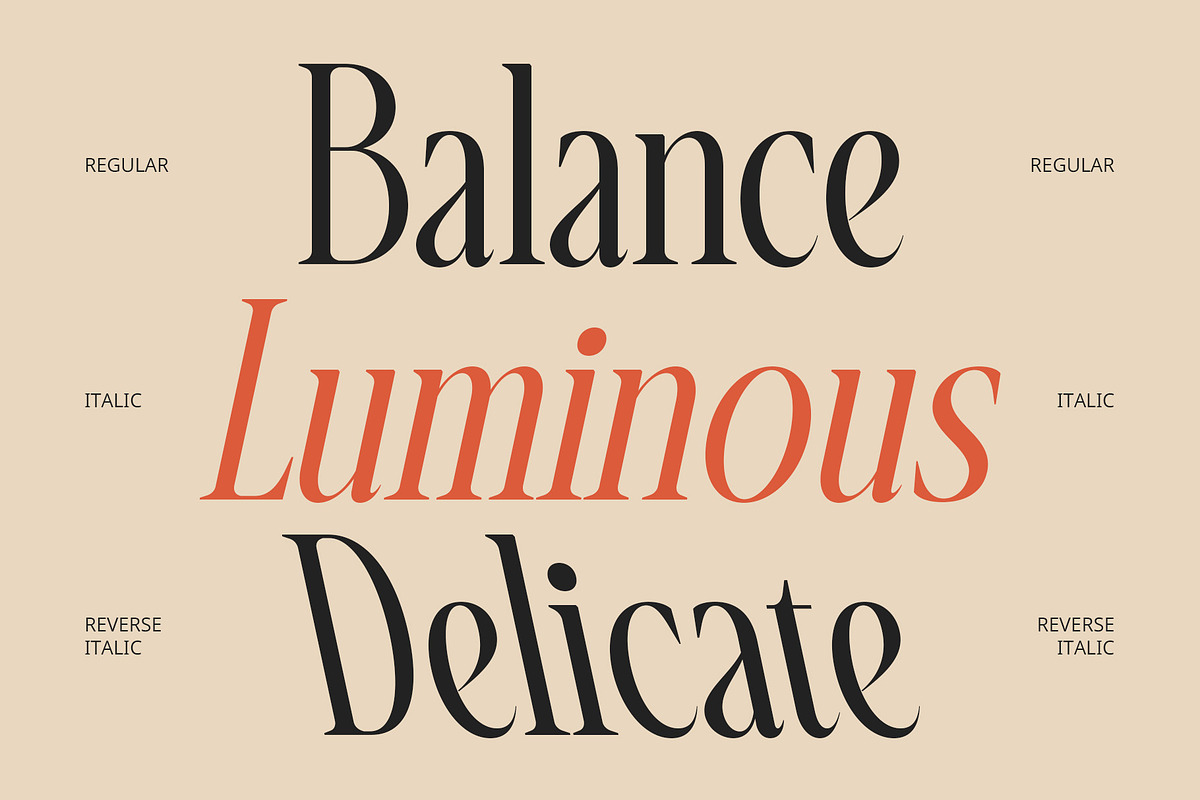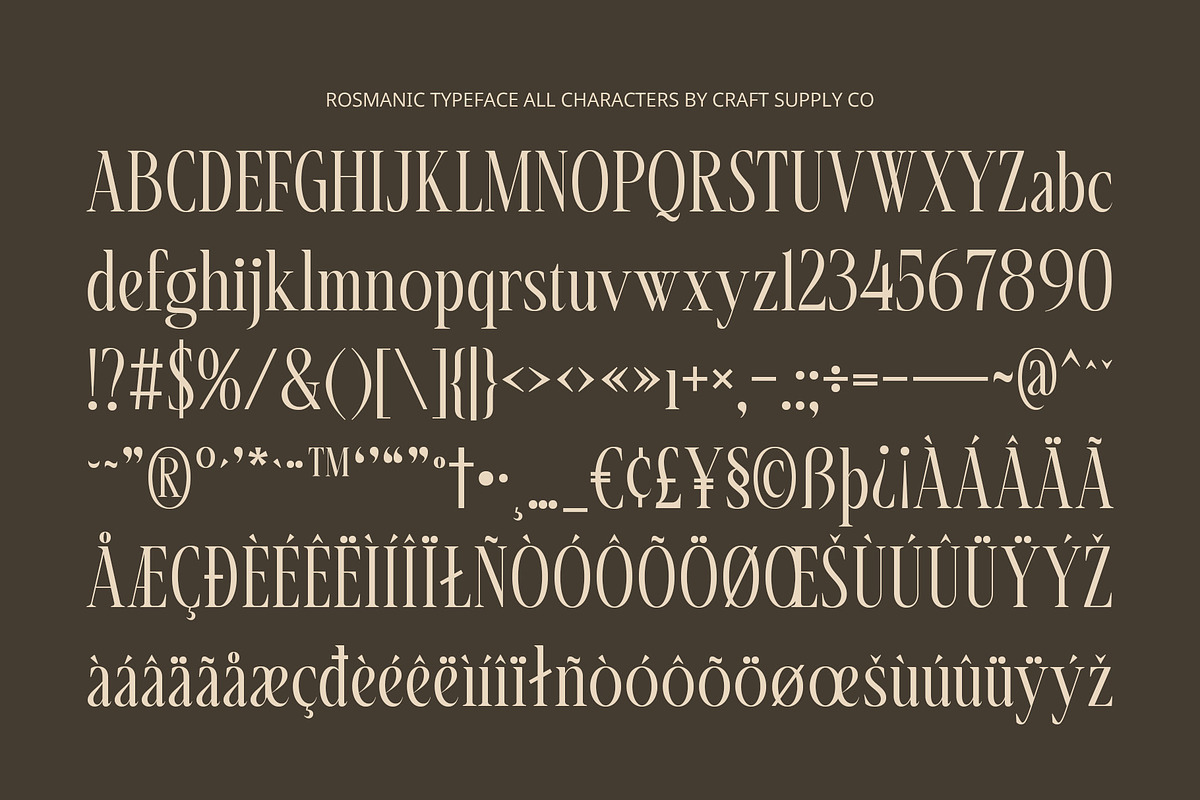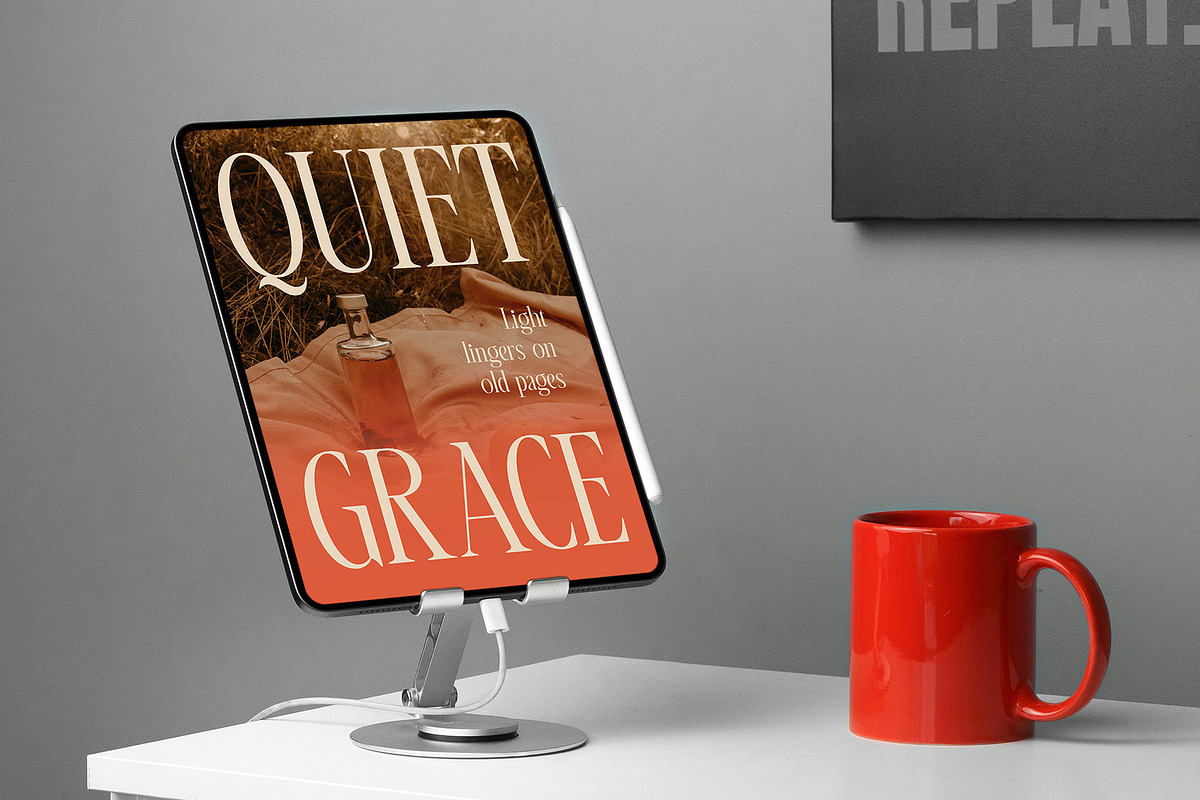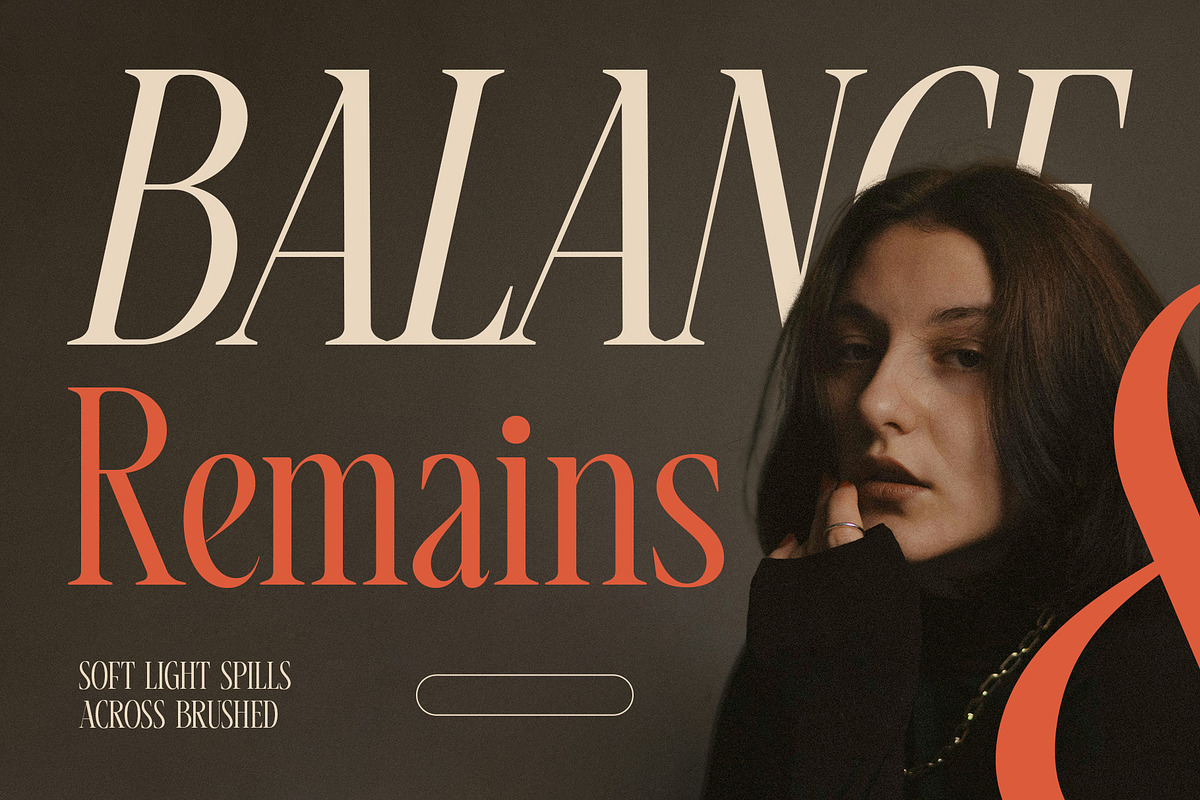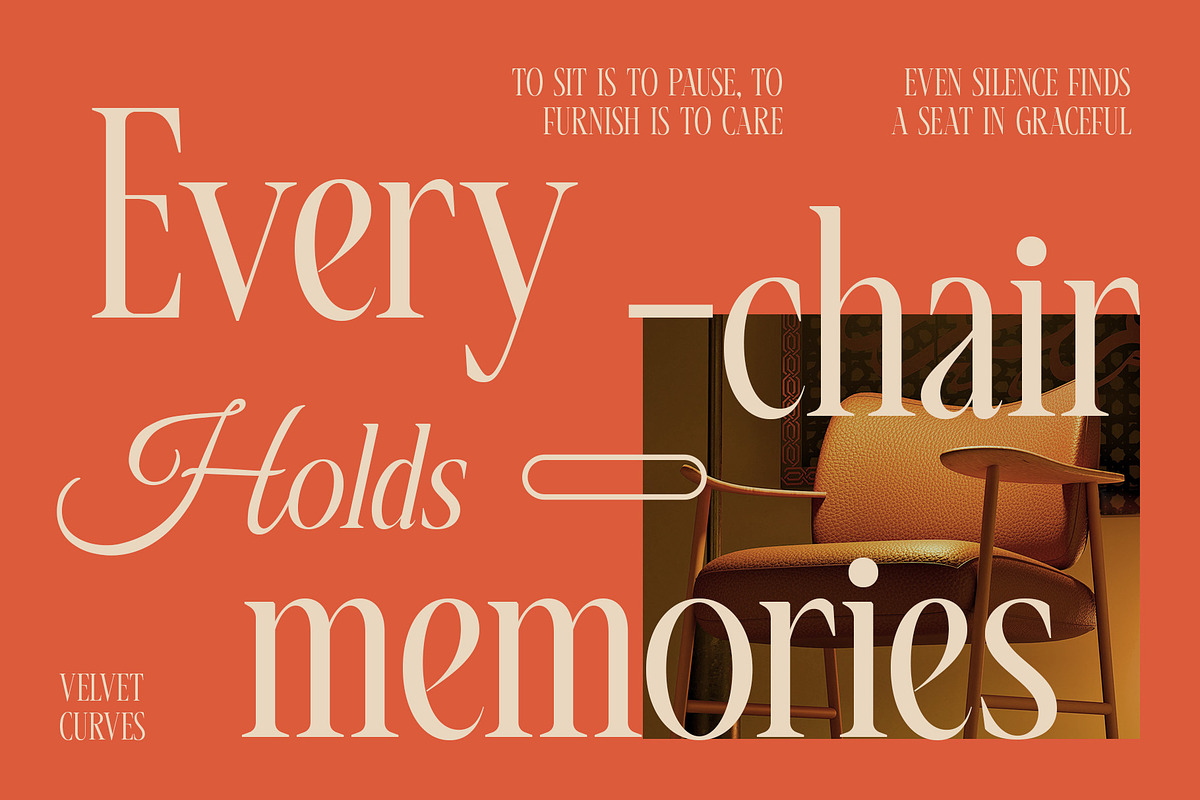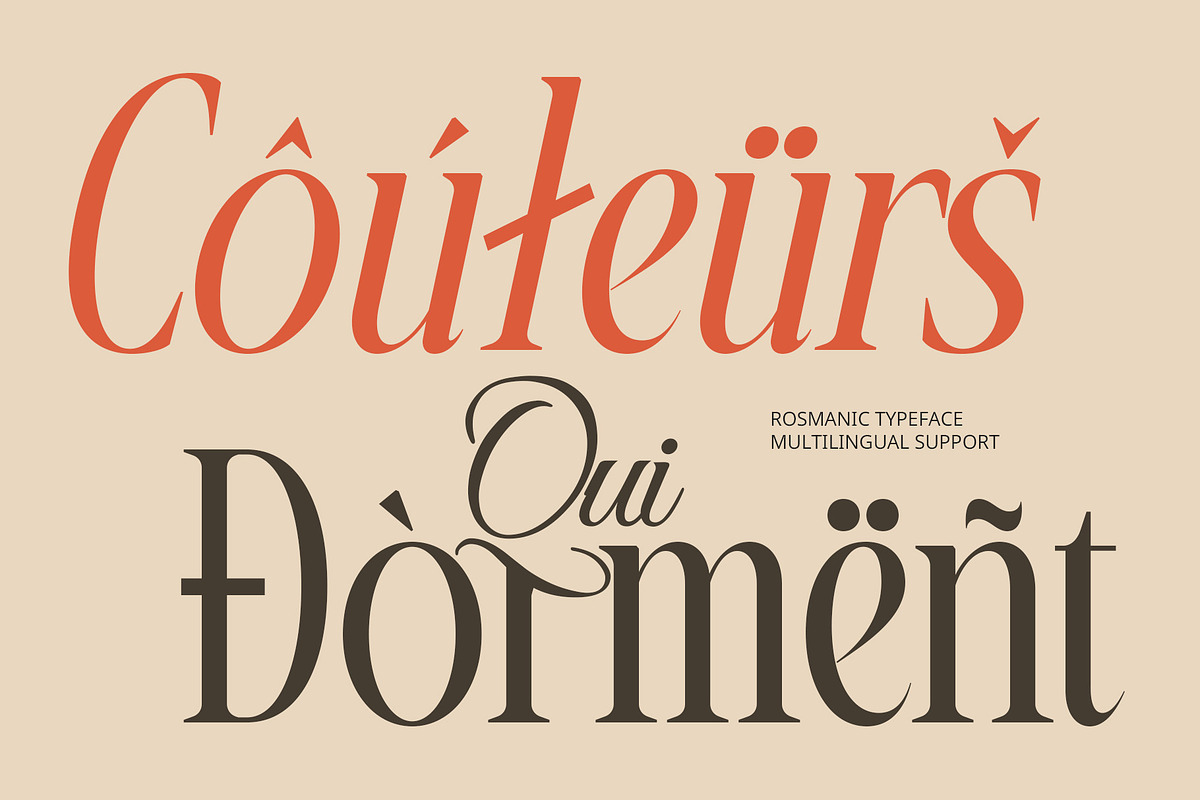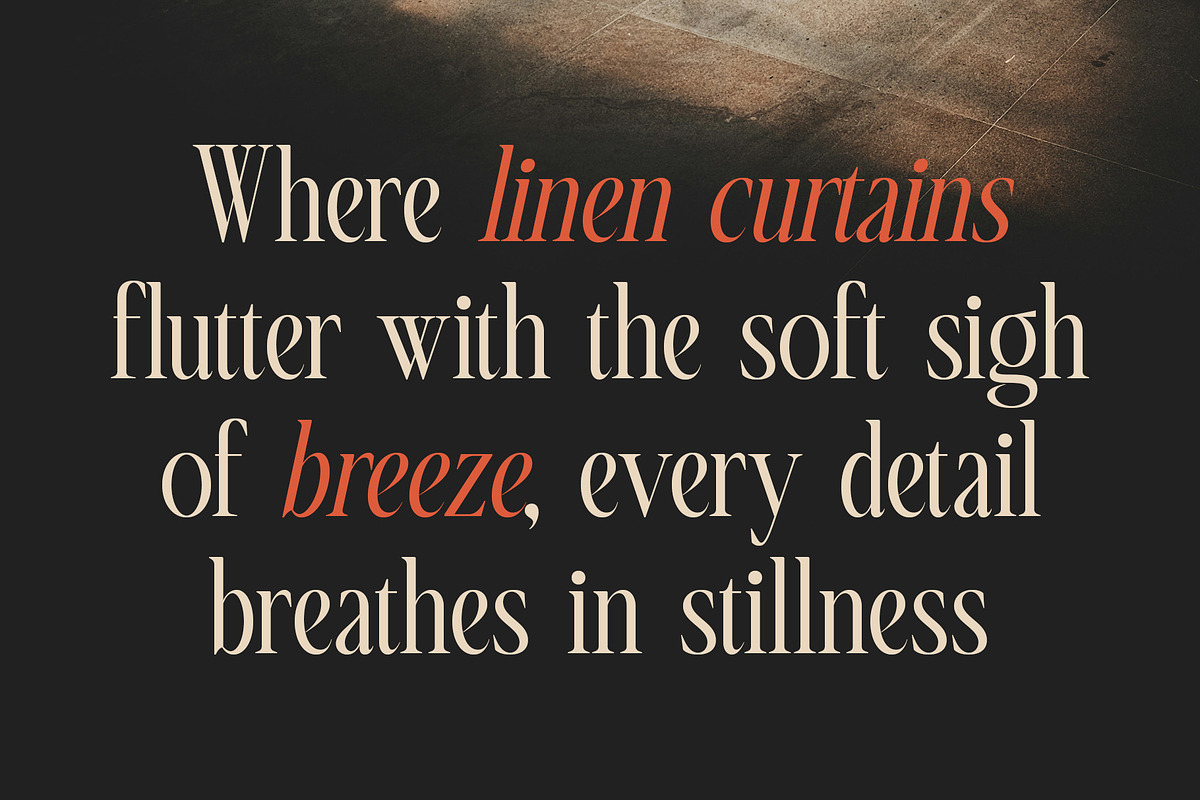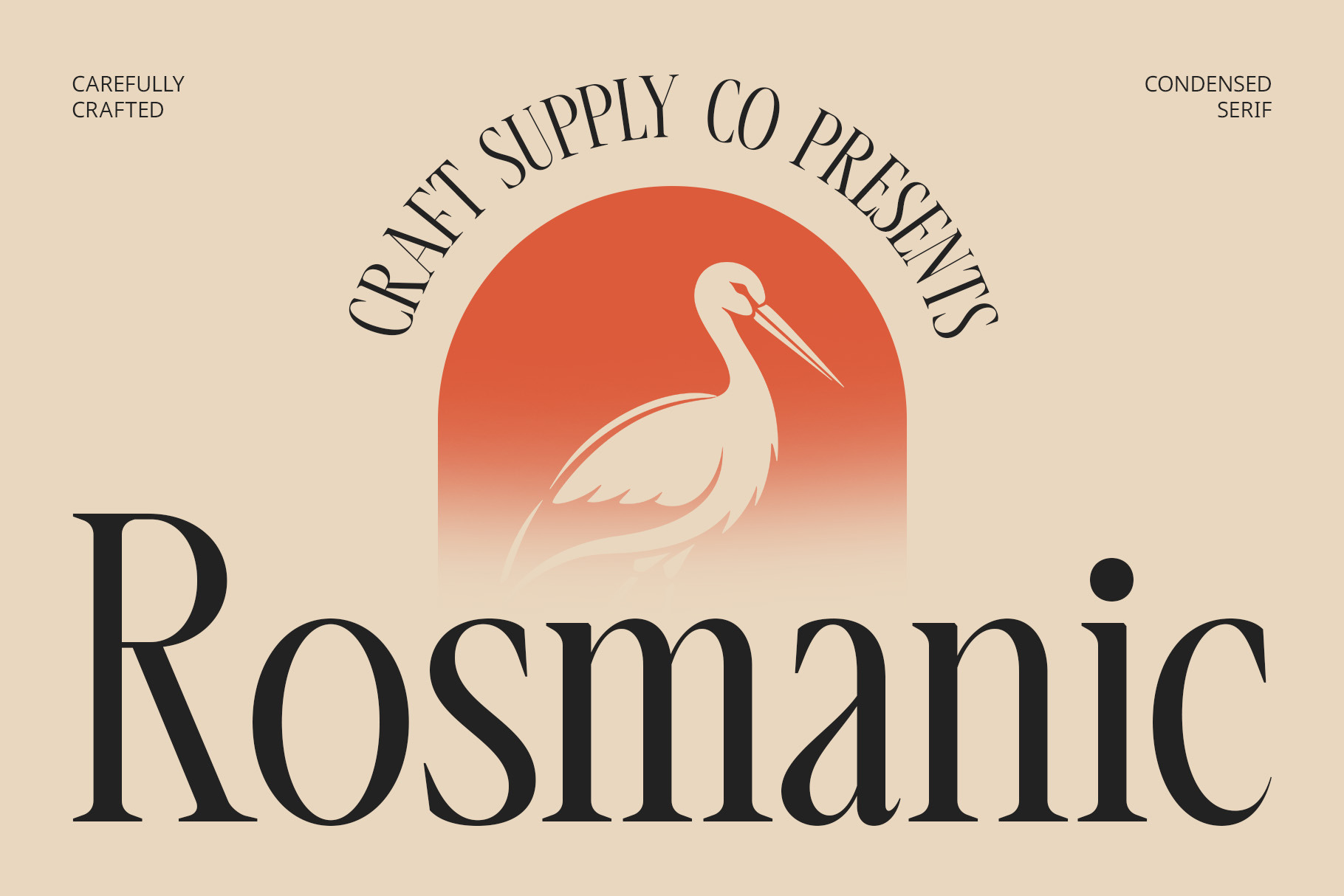
Rosmanic – Condensed Font
Rosmanic Font – Condensed Elegance in a Modern Serif
Sleek Form with Distinctive Serif Style Rosmanic Font is a modern serif font that features a condensed, sleek form paired with sharp wedge-style serif terminals. Its compact structure and crisp detailing give it a distinctive and luxurious look that effortlessly bridges the gap between classic sophistication and contemporary style. Every letter is designed with a sense of balance and proportion, making it perfect for high-end applications where elegance and clarity must go hand in hand.
Sharp, Stylish, and Contemporary Each character is crafted with precision—balancing slender proportions and strong vertical stress with crisp, sculptural serif shapes. The result is a font that feels both minimalist and expressive, ideal for polished, modern design aesthetics.
Perfect for Editorials and Luxury Branding Rosmanic is a natural fit for editorial layouts, high-end branding, fashion publications, and creative portfolios. Its condensed shape ensures efficient use of space while maintaining a strong visual identity—making headlines, titles, and logos look sleek and intentional.
Elevate Your Design with Modern Sophistication With a style that blends classic serif elegance and contemporary minimalism, Rosmanic brings clarity and beauty to your work. Whether in print or digital, it’s the perfect font for designers who want to project refinement, intelligence, and aesthetic impact.
- Rosmanic Regular
- Rosmanic Italic
- Rosmanic Reverse Italic